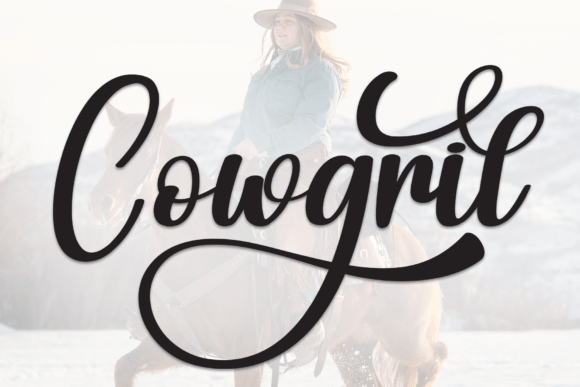
Cowgril Font: The Perfect Blend of Rustic and Modern Charm
In the world of typography, fonts play a crucial role in conveying the tone and personality of a brand or design. With the numerous font options available, it can be challenging to find the perfect one that captures the desired style. However, if you’re looking for a bold, handwritten font that exudes a fun and casual vibe, look no further than Cowgril Font. In this article, we’ll explore the unique features of Cowgril Font, its uses, and why it’s an excellent choice for your design projects.
What is Cowgril Font?
Cowgril Font is a bold, handwritten font that embodies a fun and casual style. Its thick strokes and playful letters make it perfect for headlines, invitations, and any design that requires a lively touch. The font’s rustic feel is balanced with modern charm, making it an excellent choice for both playful and stylish designs.
Unique Features of Cowgril Font
Cowgril Font boasts several unique features that set it apart from other fonts. Some of its notable characteristics include:
• Bold and Thick Strokes: The font’s bold and thick strokes give it a sturdy and confident look, making it perfect for headlines and titles.
• Playful Letters: The playful letters in Cowgril Font add a touch of whimsy and fun, making it ideal for designs that require a lighthearted approach.
• Rustic Feel: The font’s rustic feel gives it a charming, homespun quality that evokes a sense of nostalgia and warmth.
• Modern Charm: Despite its rustic feel, Cowgril Font also has a modern charm that makes it suitable for contemporary designs.
Uses of Cowgril Font
Cowgril Font is a versatile font that can be used in a variety of design projects, including:
• Headlines and Titles: The font’s bold and thick strokes make it perfect for headlines and titles that require attention-grabbing typography.
• Invitations and Announcements: Cowgril Font’s playful and lively feel makes it an excellent choice for invitations, announcements, and other social media graphics.
• Branding and Logo Design: The font’s unique blend of rustic and modern charm makes it an excellent choice for branding and logo design projects.
• Packaging and Advertising: Cowgril Font can also be used in packaging and advertising designs that require a bold and attention-grabbing typography.
Why Choose Cowgril Font?
With so many fonts available, why choose Cowgril Font? Here are some reasons why Cowgril Font stands out:
• Unique Style: Cowgril Font has a unique style that blends rustic and modern charm, making it an excellent choice for designers looking for a distinctive font.
• Versatility: The font’s versatility makes it suitable for a wide range of design projects, from headlines and titles to branding and logo design.
• Easy to Read: Despite its bold and thick strokes, Cowgril Font is easy to read, making it perfect for designs that require clear and legible typography.
• Fun and Casual: The font’s playful and lively feel makes it an excellent choice for designs that require a fun and casual approach.
Tips for Using Cowgril Font
Here are some tips for using Cowgril Font effectively in your design projects:
• Use it for Headlines and Titles: Cowgril Font is perfect for headlines and titles that require attention-grabbing typography.
• Pair it with Other Fonts: The font can be paired with other fonts to create a unique and visually appealing typography.
• Experiment with Colors: Cowgril Font can be used with a variety of colors to create a bold and eye-catching design.
• Keep it Simple: Despite its bold and playful feel, Cowgril Font works best when used in a simple and clean design.
In conclusion, Cowgril Font is a bold, handwritten font that captures a fun and casual style. Its unique blend of rustic and modern charm makes it an excellent choice for a wide range of design projects, from headlines and titles to branding and logo design. With its thick strokes, playful letters, and easy-to-read design, Cowgril Font is perfect for designers looking for a distinctive and versatile font.
• What is Cowgril Font? Cowgril Font is a bold, handwritten font that embodies a fun and casual style.
• What are the unique features of Cowgril Font? Cowgril Font boasts several unique features, including bold and thick strokes, playful letters, rustic feel, and modern charm.
• What are the uses of Cowgril Font? Cowgril Font can be used in a variety of design projects, including headlines and titles, invitations and announcements, branding and logo design, and packaging and advertising.
• Why choose Cowgril Font? Cowgril Font stands out due to its unique style, versatility, easy-to-read design, and fun and casual feel.